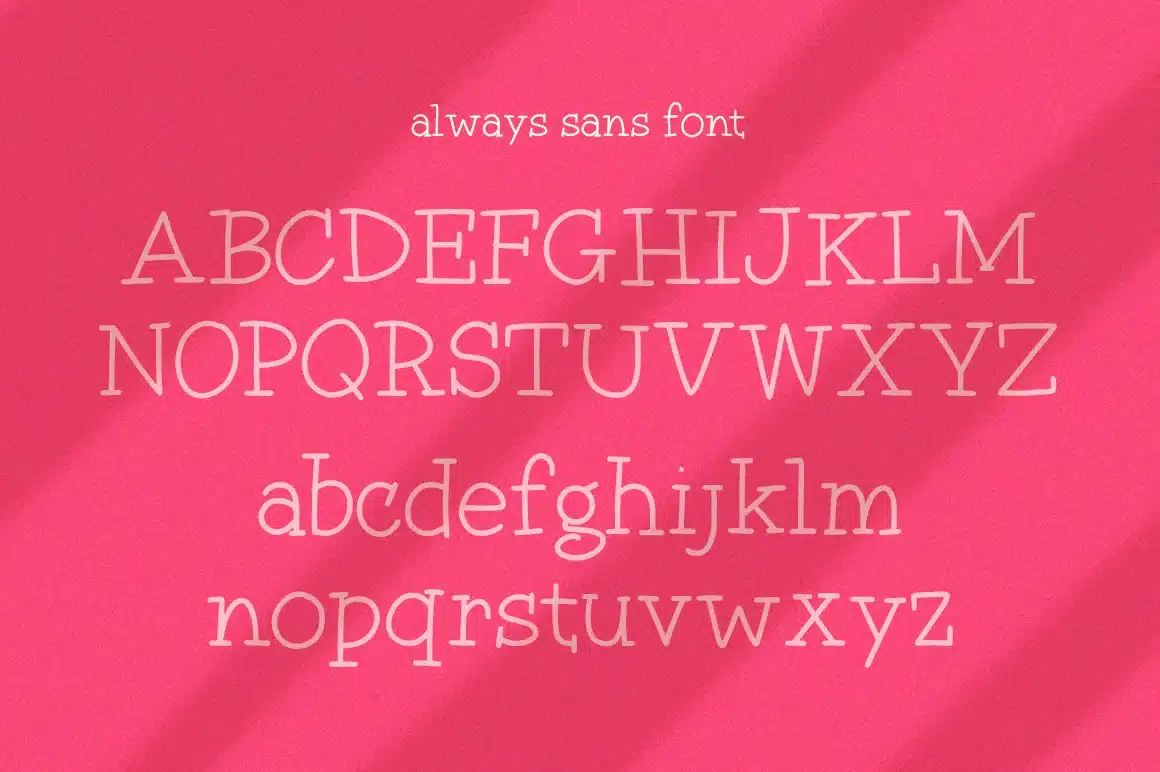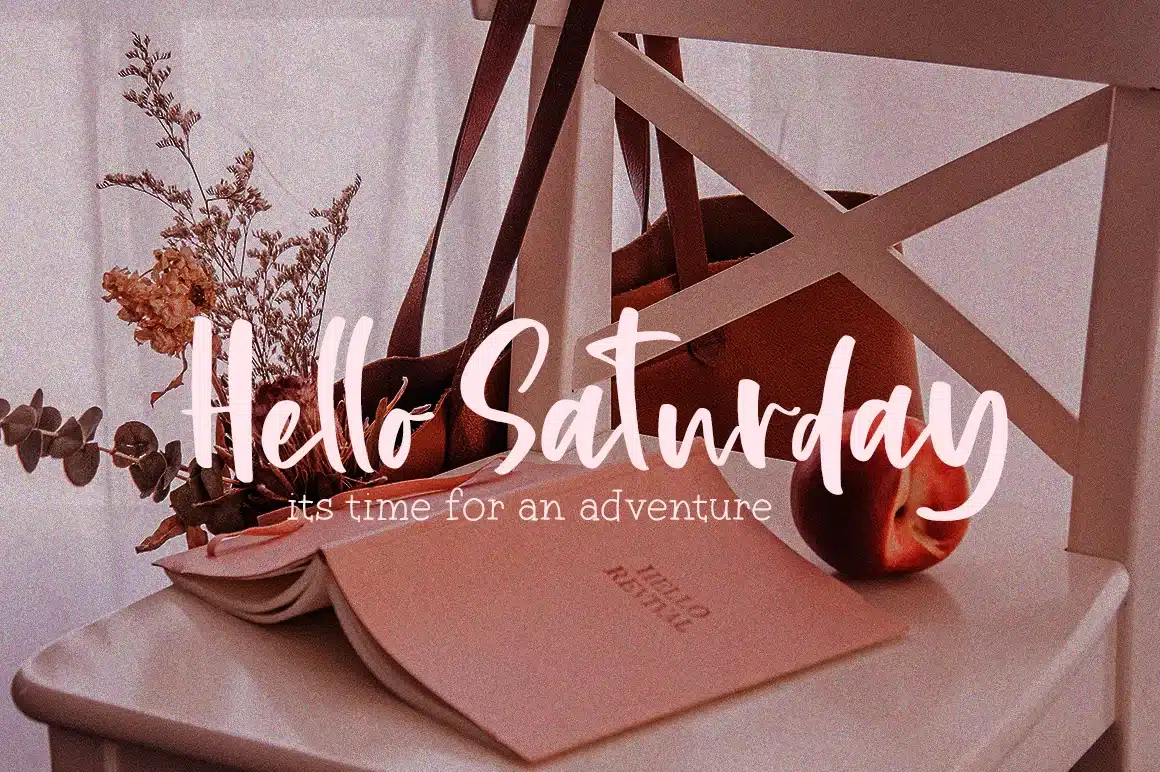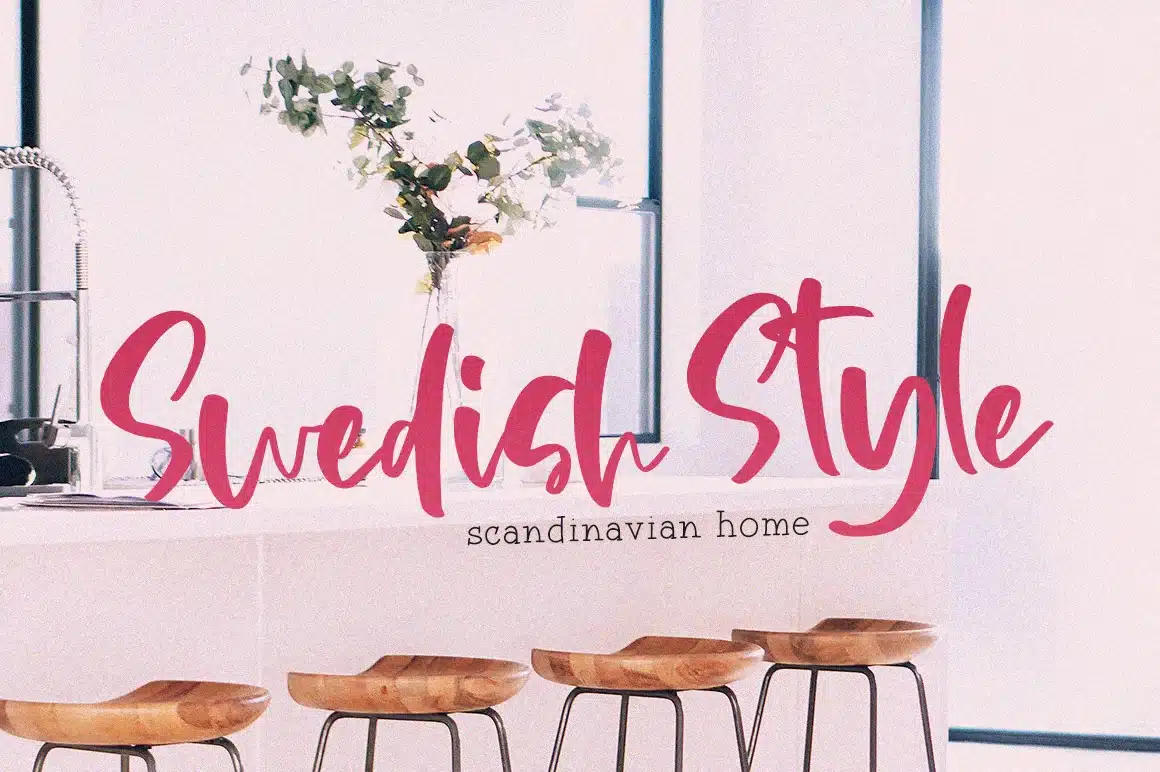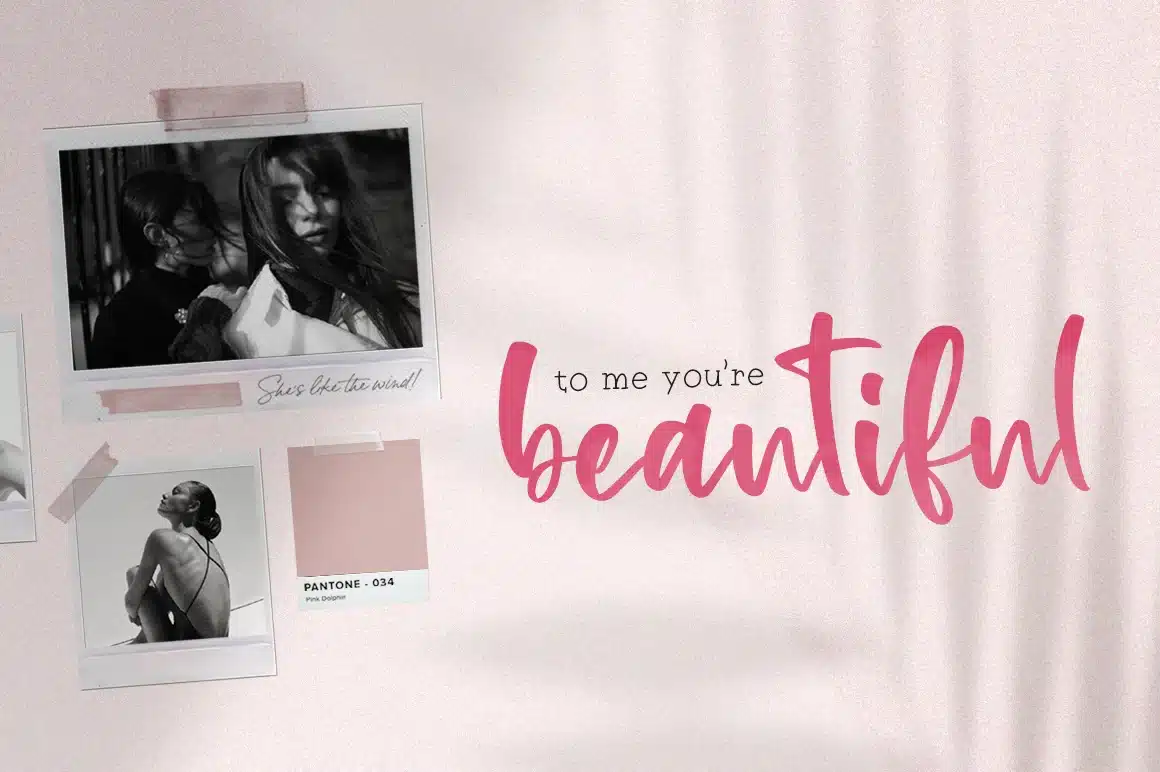
Always Font Duo
Always remember that fonts are for life, not just for Christmas! So treat yourself to a fabulous new duo - Always! A hand brushed beauty that pairs perfectly with its serif sweetie duo. Enjoy!